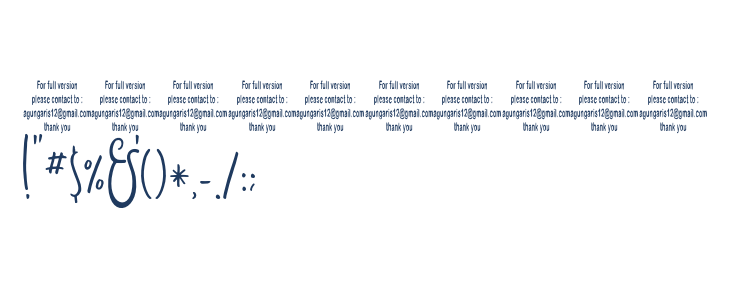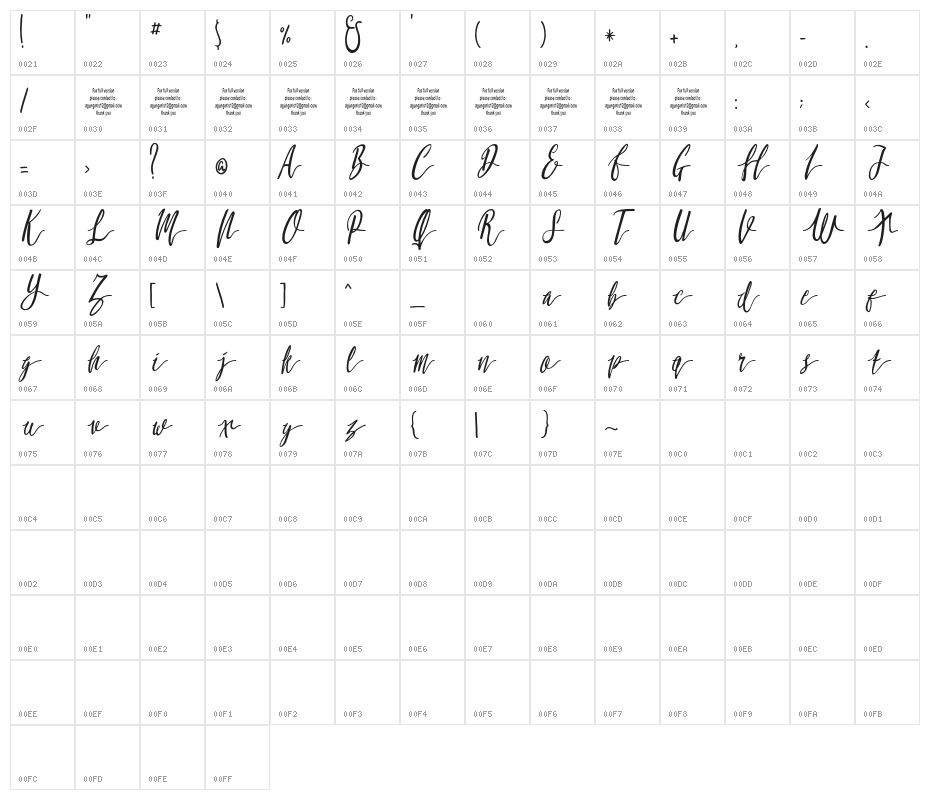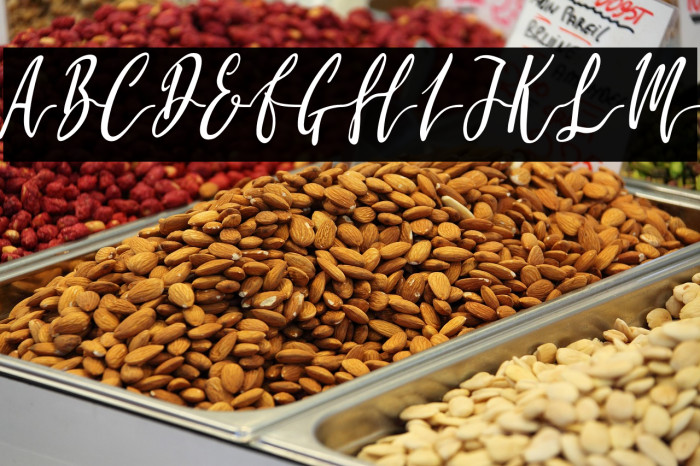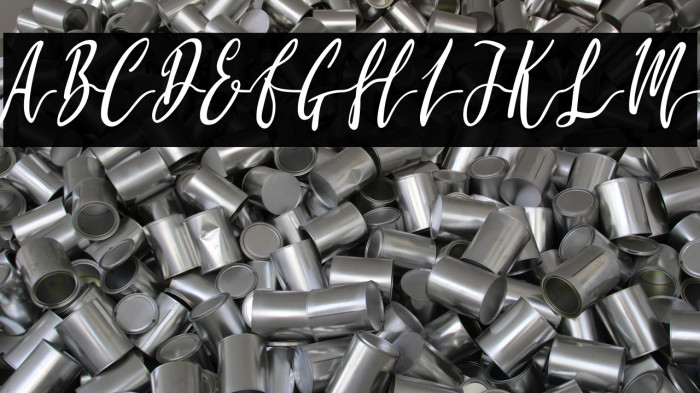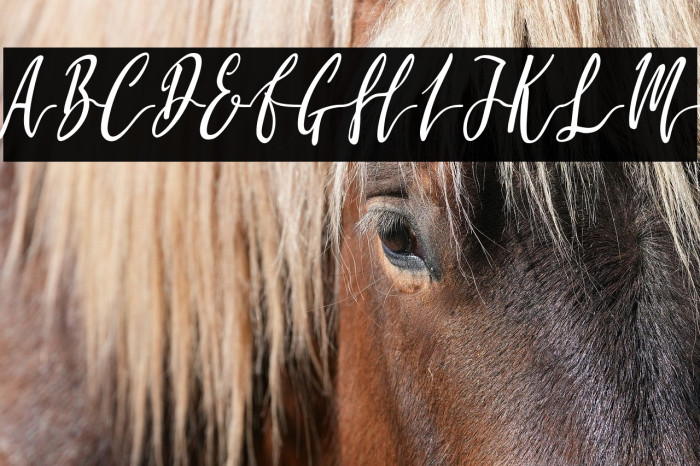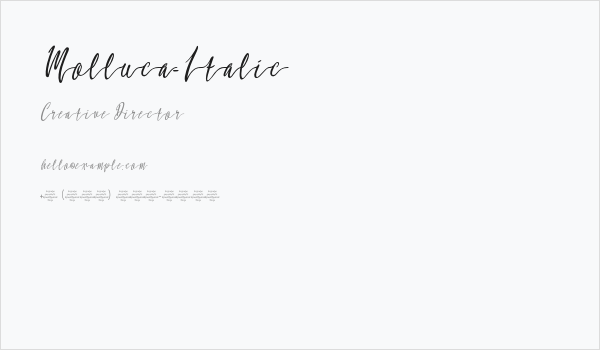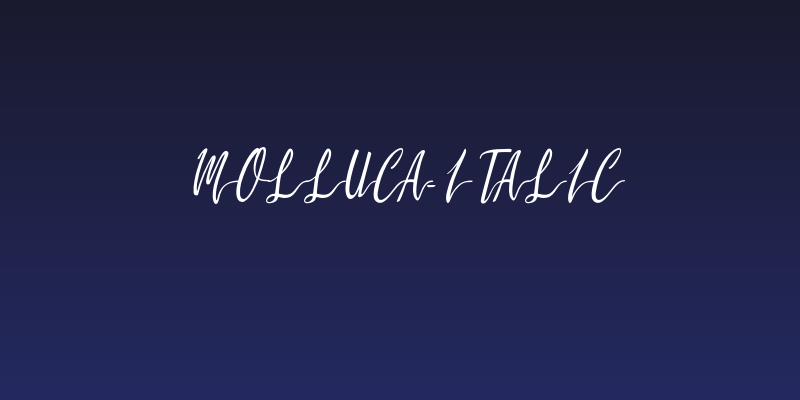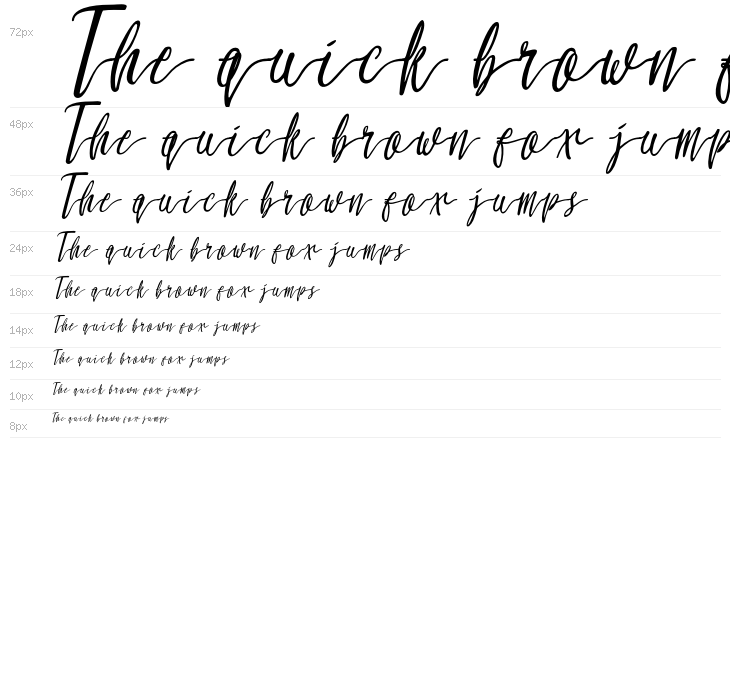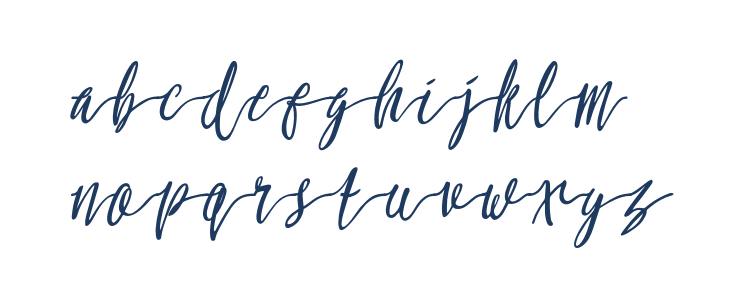
Molluca-Italic Font
Molluca-Italic Description
This font features a flowing, cursive style with elegant, sweeping strokes that give it a handwritten appearance. The uppercase letters are bold and expressive, with distinctive loops and flourishes that add a touch of sophistication. The lowercase letters maintain a consistent flow, connecting smoothly to create a seamless script. The numbers and special characters are designed to complement the letters, maintaining the same fluidity and style. This font is ideal for projects that require a personal, artistic touch, such as invitations, greeting cards, and branding materials.
| Proposed Projects | Ideal for invitations, greeting cards, branding materials, and artistic projects. |